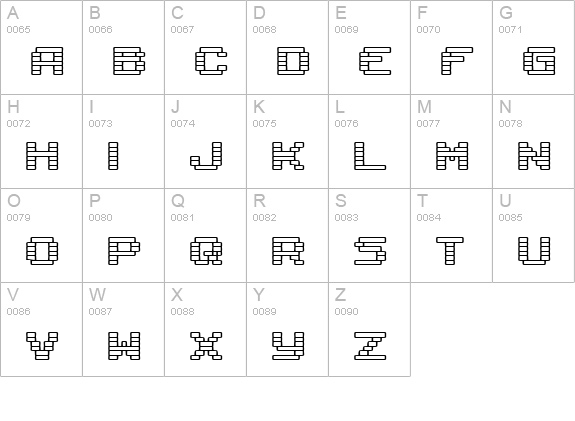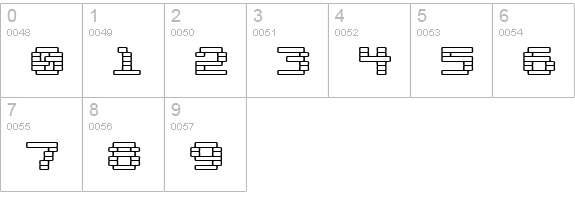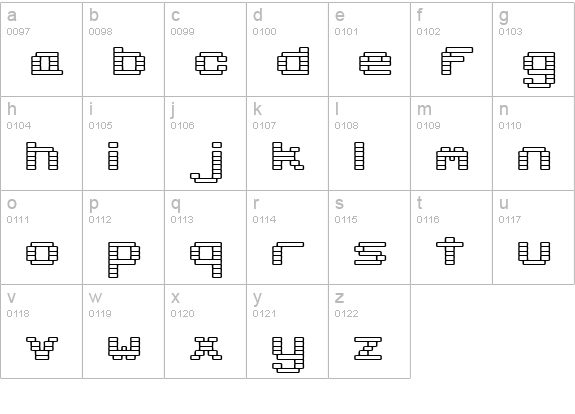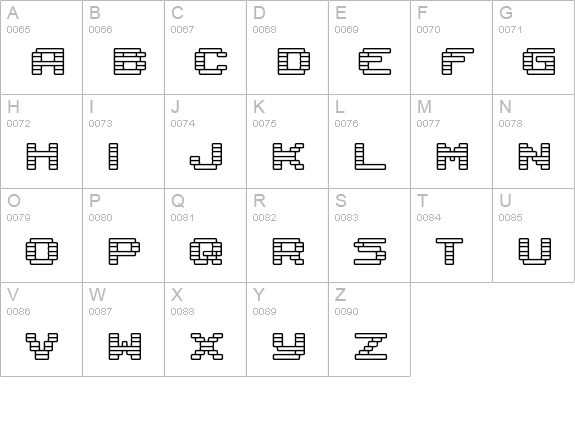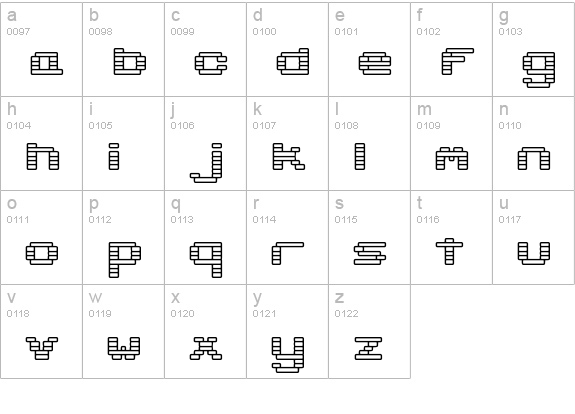
Gaposis Outline (BRK) Font Details
Gaposis Outline (BRK) is a stunning font that exudes a harmonious balance between elegance and playfulness. With its intricate outline design, this font captures attention and adds a touch of sophistication to any project. Each letter is meticulously crafted to create a visually striking appearance, making it perfect for logos, headlines, and other eye-catching design elements. This font stands out not only for its exceptional aesthetics but also for its versatility. Whether you're working on a modern website, a vintage-inspired poster, or a futuristic branding project, Gaposis Outline (BRK) adapts effortlessly to suit various styles and themes. One of the most remarkable aspects of Gaposis Outline (BRK) is that it is available for free. Yes, you read that right! This incredible font can be downloaded at FontsMarket.com, allowing designers and creatives to access its beauty without any cost. This means you can enhance your designs and make them truly remarkable without breaking the bank. Downloading Gaposis Outline (BRK) from FontsMarket.com is a hassle-free experience. Simply visit the website, locate the font, and click the download button. In just a few moments, you'll have this exceptional font at your fingertips, ready to bring your creative visions to life. With its elegance, versatility, and the added benefit of being freely available, Gaposis Outline (BRK) is a font that is not to be missed. Whether you're a professional designer or a hobbyist, this font is sure to become a valuable asset in your creative toolbox. Download it today and witness the magic it brings to your designs.